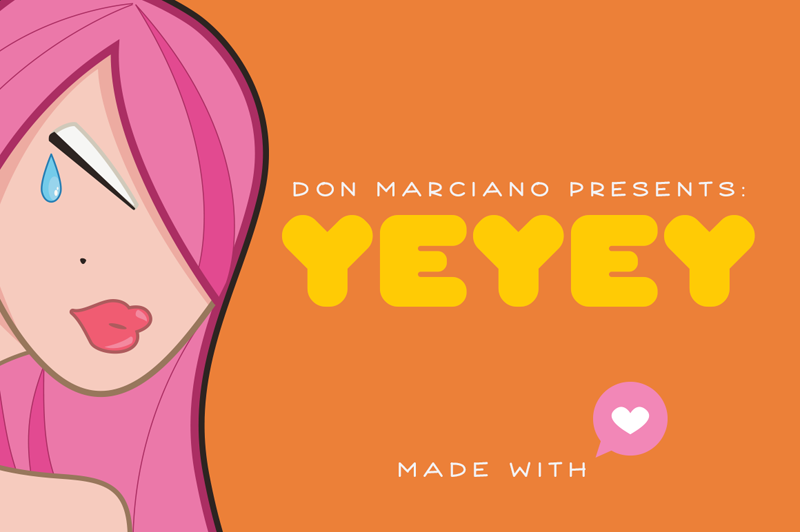
Preview and download Yeyey Font. Created by Don Marciano in Fancy Groovy styles with Free for personal use license.
Yeyey is a strong bold display font inspired by the Kawaii style movement, made it with much love. If you need a commercial license follow the link here: http://hellodonmarciano.com/v1/license/ I�ll appreciate your support if possible, Thanks! |